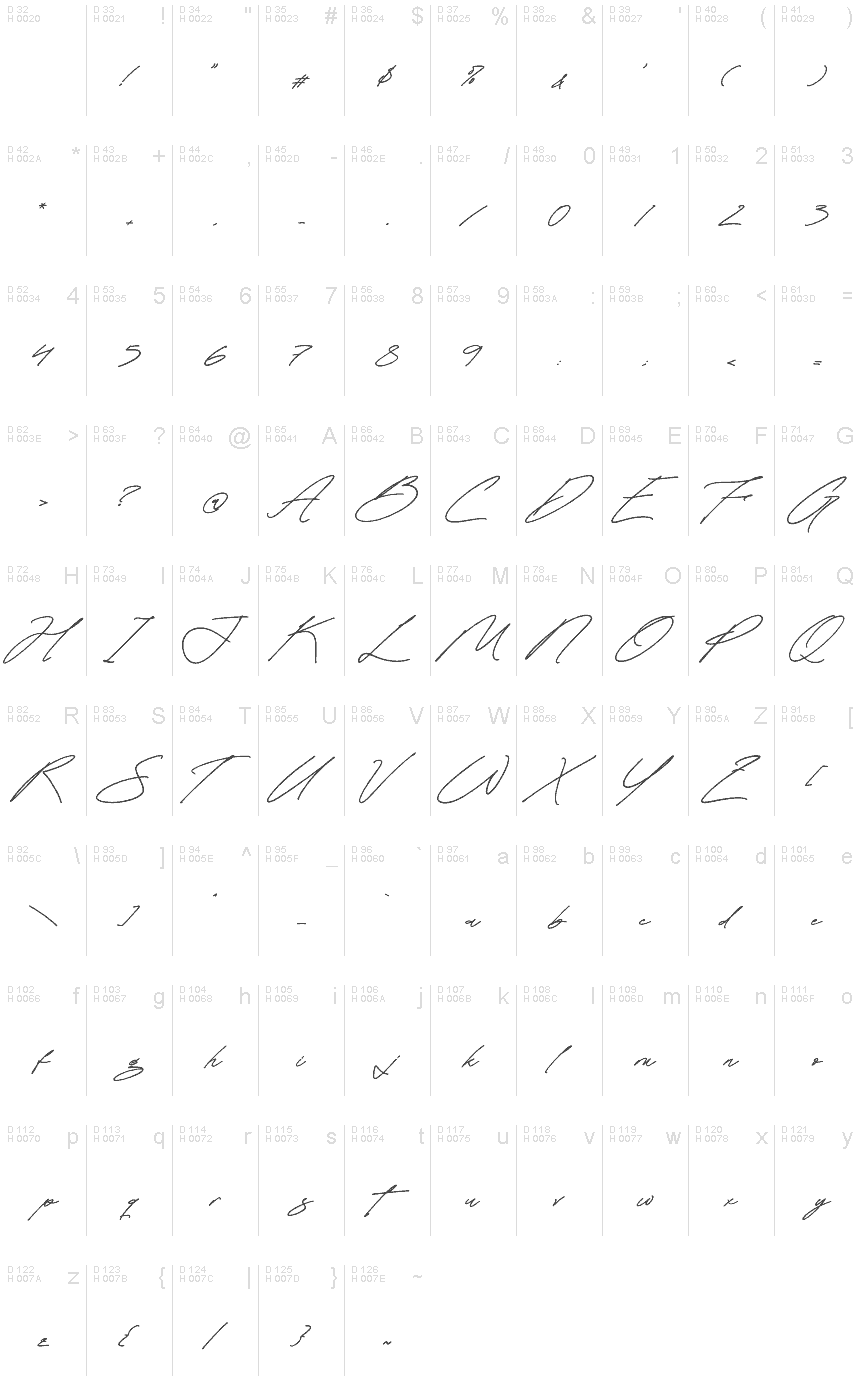
Florestta Opheralio
Florestta Opheralio font by Letterena Studios is a light, handwritten typeface with an elegant and expressive mood. Its flowing lines and sophisticated signature style create a subtle vintage feel. Impressively delicate in its approach to clear typography, this one has a beauty within every stroke, angle, and curve that it brings forward.
Use Florestta Opheralio for magazine covers, branding design projects, branded items packaging designs like chocolate boxes or bottles of perfumes. Also invite it into submissions relating to blog features or personal websites where you can use it in the different header sections or write your very own logo with Floresttta’s assistance.